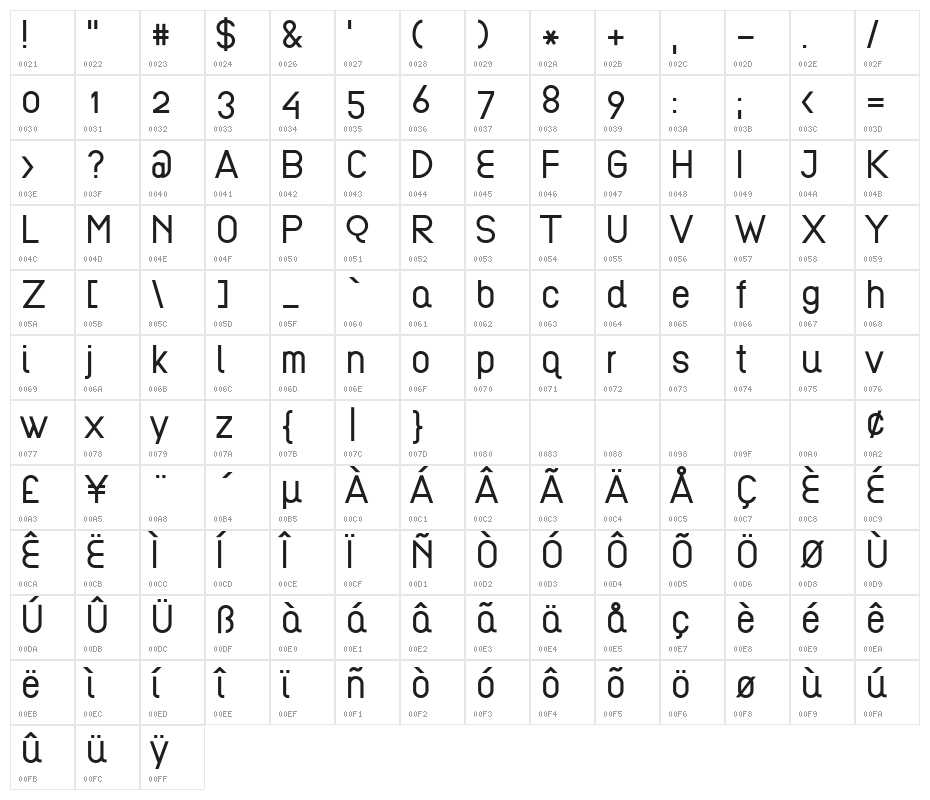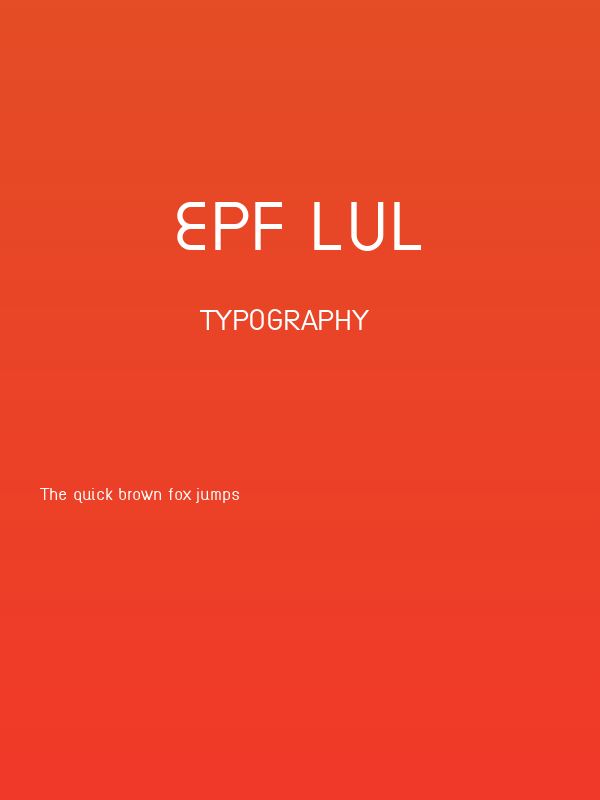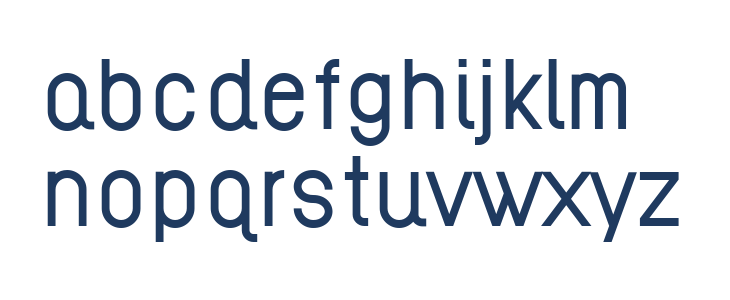
EPF LUL Font
EPF LUL Description
This font features a clean and modern sans-serif design with a geometric structure. The characters are uniform in width, providing a balanced and harmonious appearance. The uppercase letters are bold and assertive, while the lowercase letters maintain a consistent height, contributing to the font's readability. The numerals are clear and distinct, making them suitable for various applications. The special characters are well-defined, adding versatility to the font's usage. Overall, this font exudes a contemporary and professional vibe, making it ideal for both digital and print media.